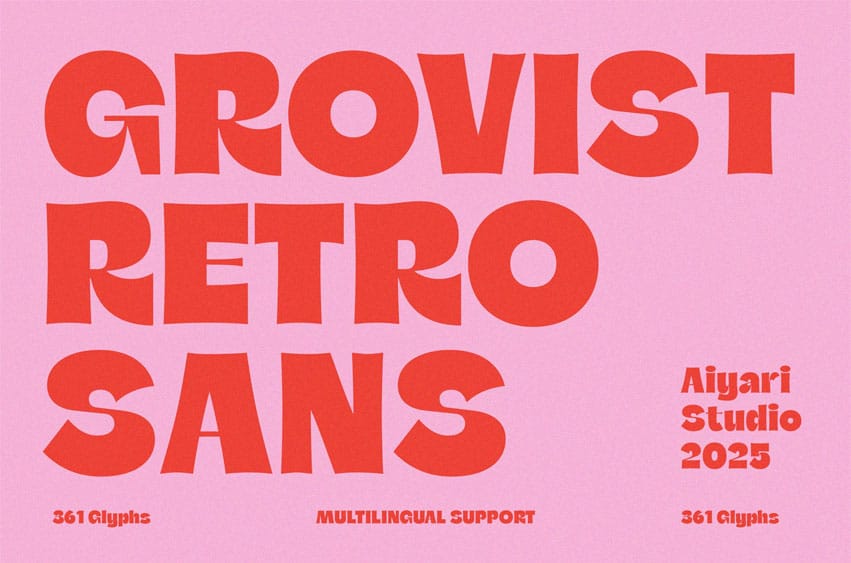
Grovist Font is a modern-retro display typeface inspired by the energetic curves and bold rhythm of 70s–80s pop culture. Featuring high contrast between stems and bars, Grovist blends vintage funk with contemporary clarity, echoing humanist warmth and expressive motion.
Ideal for logotypes, posters, packaging, book covers, and creative projects that seek a unique yet timeless character, Romns brings a sophisticated yet aesthetic touch to any design.